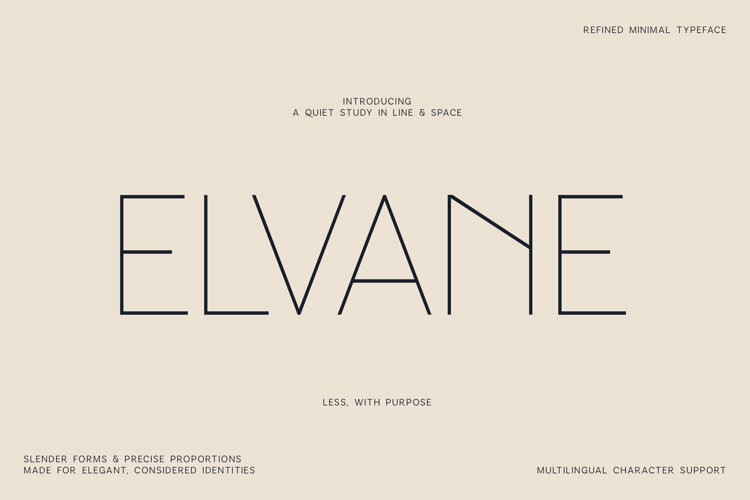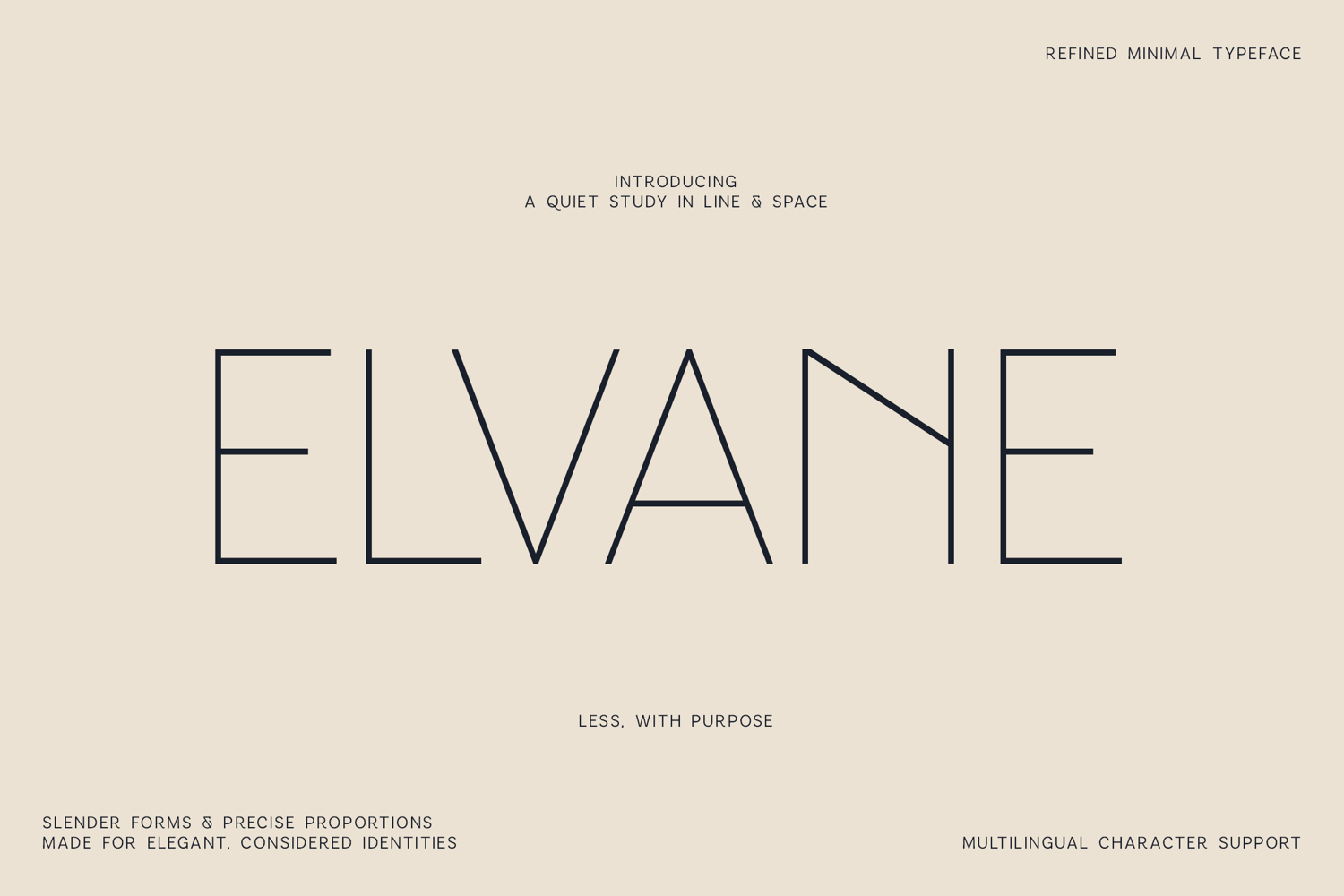
Elvane Thin Elegant Font for Logos and Branding
Create sophisticated visual identities with Elvane, a thin elegant font designed for logos, branding and modern graphic design.
Elvane combines delicate strokes with open proportions and carefully balanced shapes, creating typography that feels polished without becoming overly decorative.
Its restrained character works especially well for wordmarks, boutique identities and premium packaging where simplicity is part of the visual language.
This thin elegant font is ideal for:
- Logo design
- Brand identities
- Boutique branding
- Beauty packaging
- Fashion graphics
- Business cards
- Product labels
- Editorial titles
- Social media
- Minimal posters
- Website graphics
Elvane pairs naturally with bold sans serifs, expressive scripts and high-contrast serif fonts when you need a sophisticated typographic hierarchy.
Use this thin elegant font whenever your project needs a light, premium and intentionally minimal appearance.